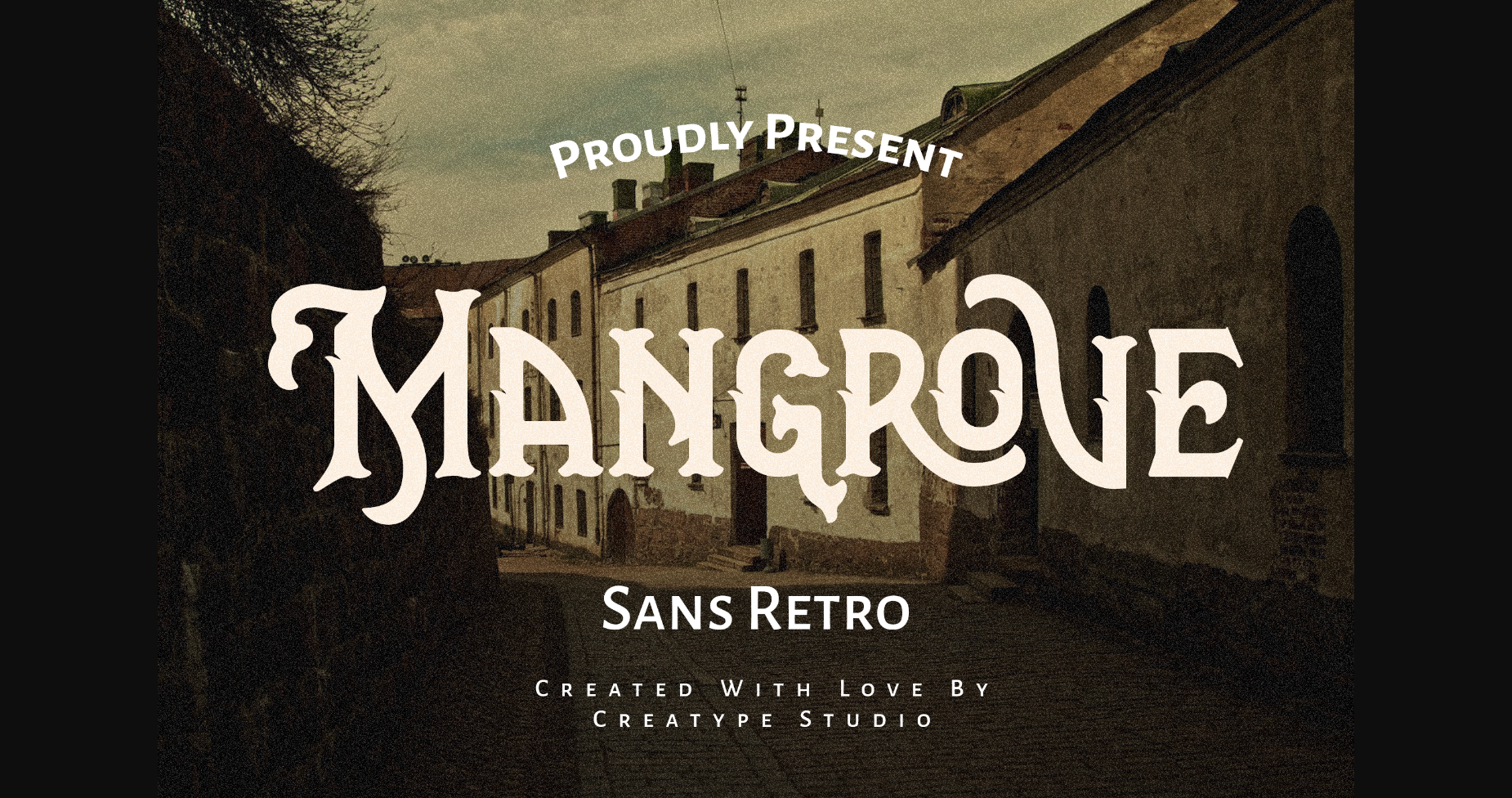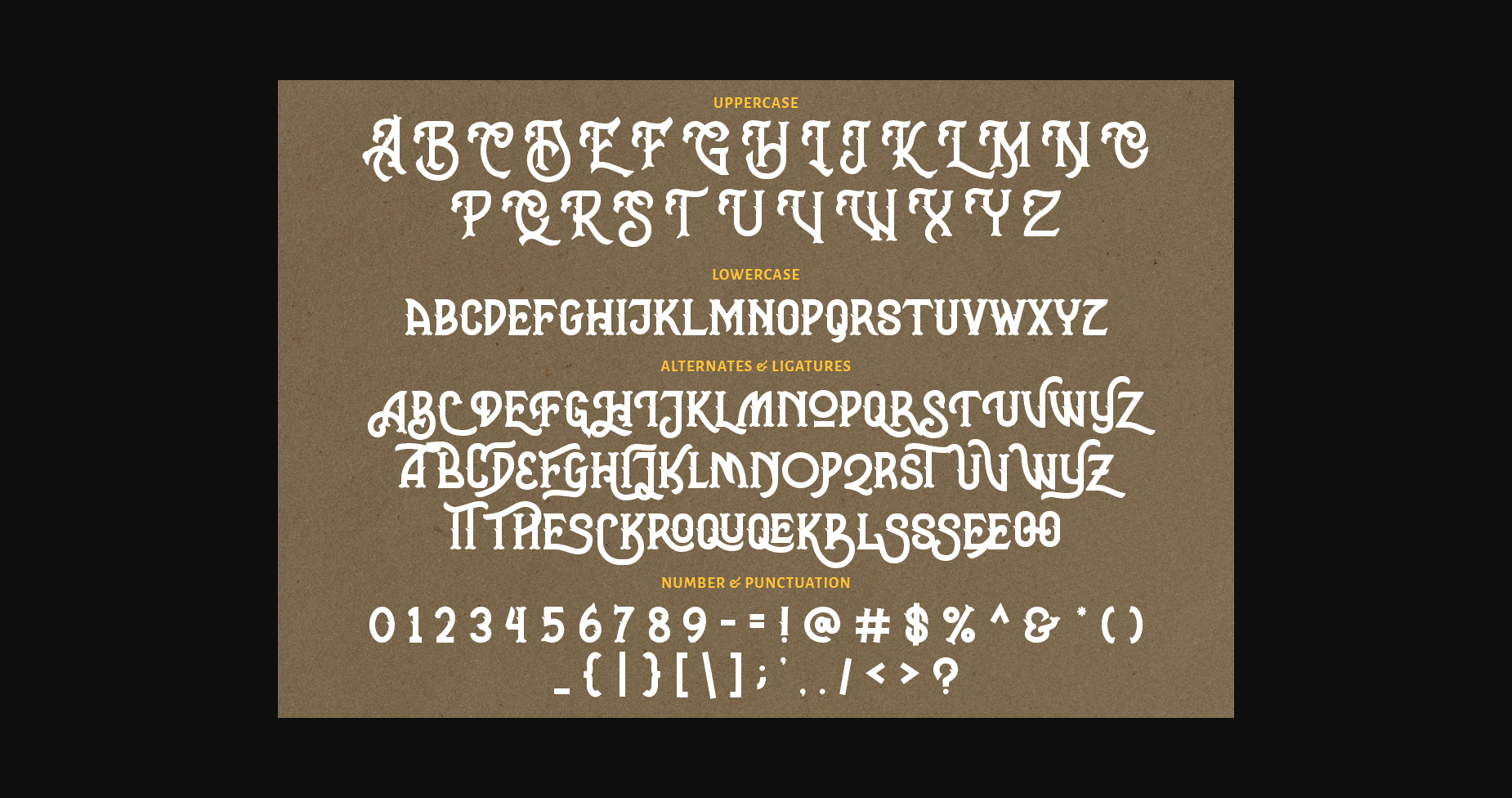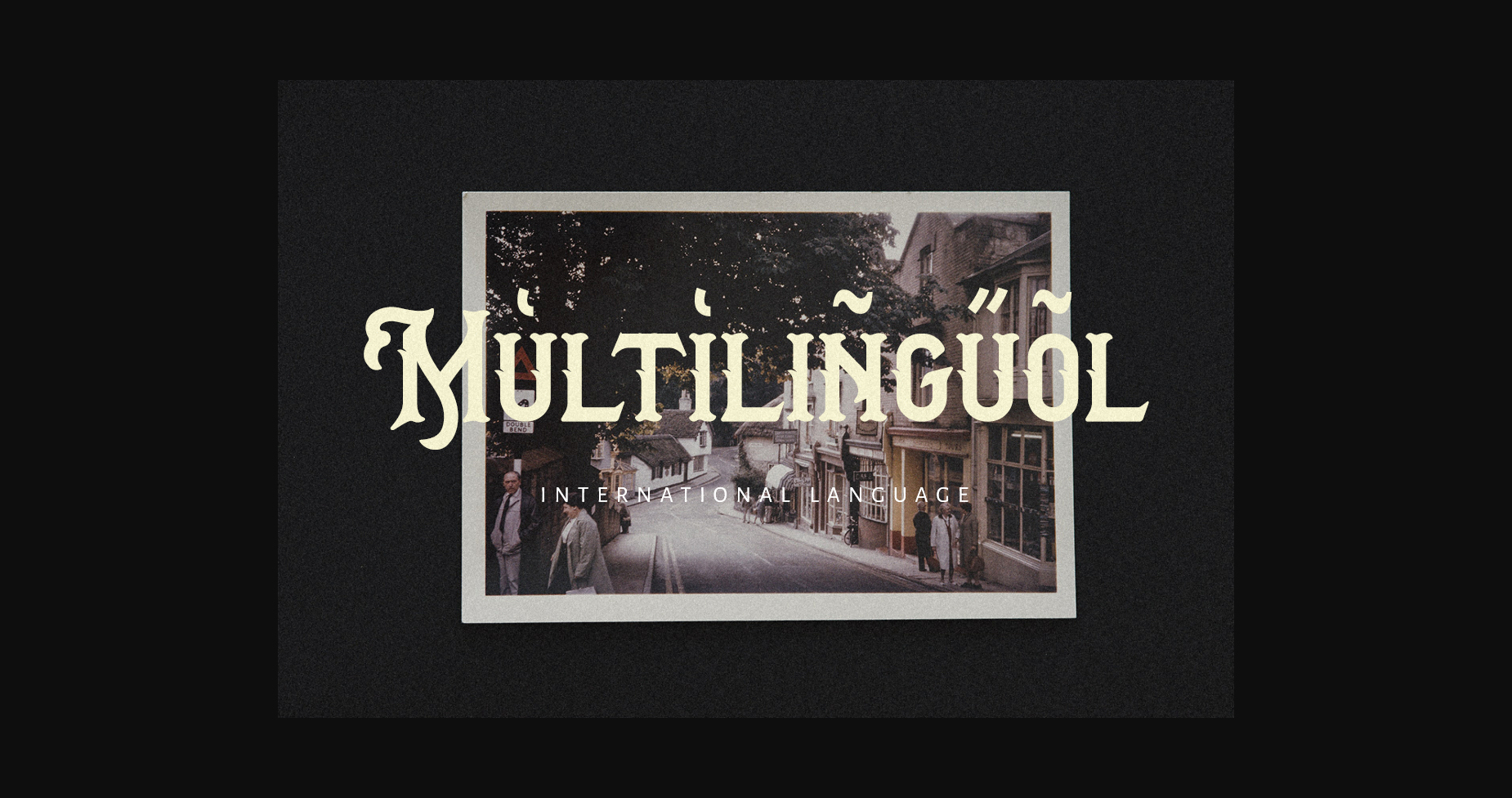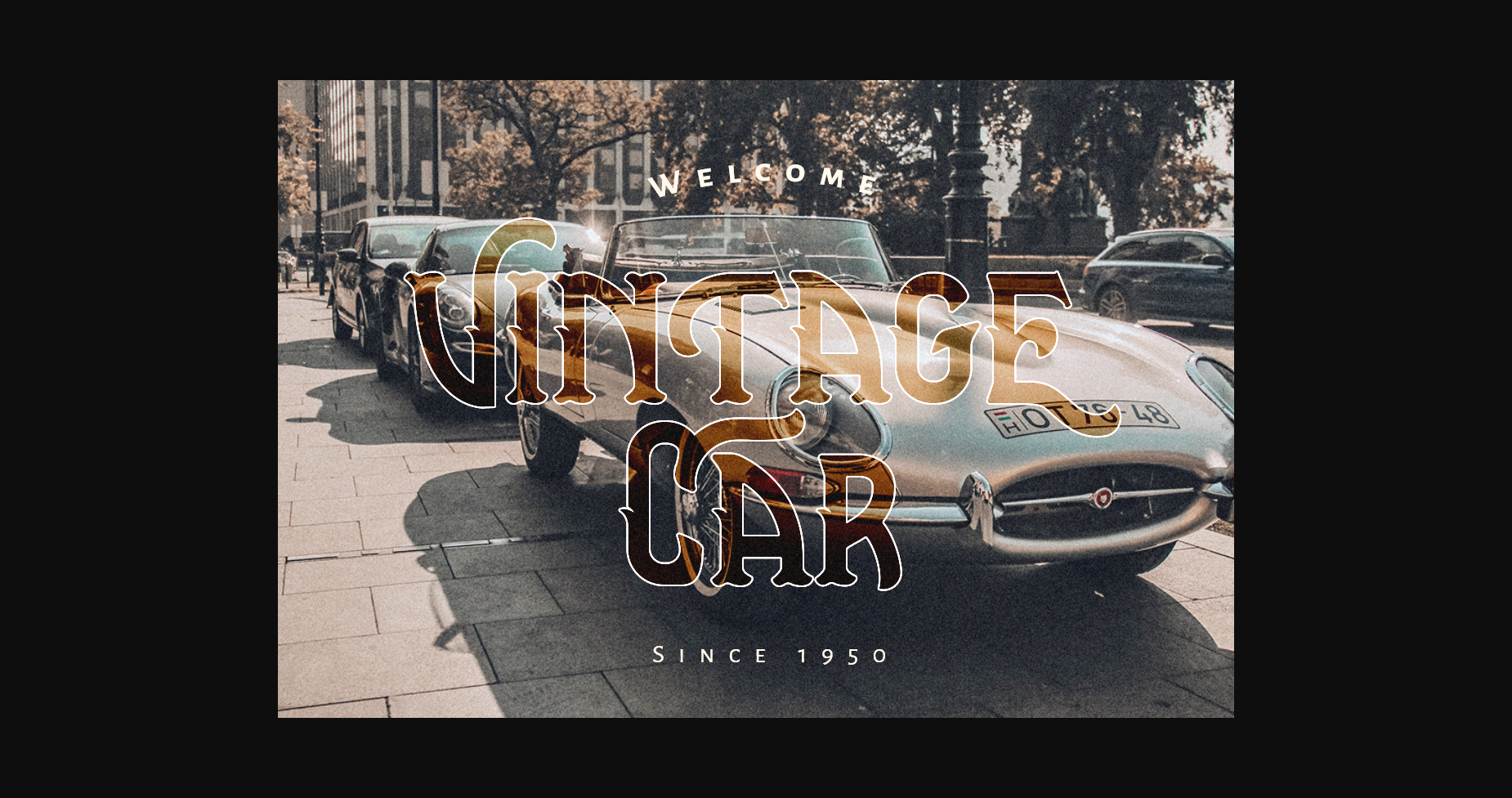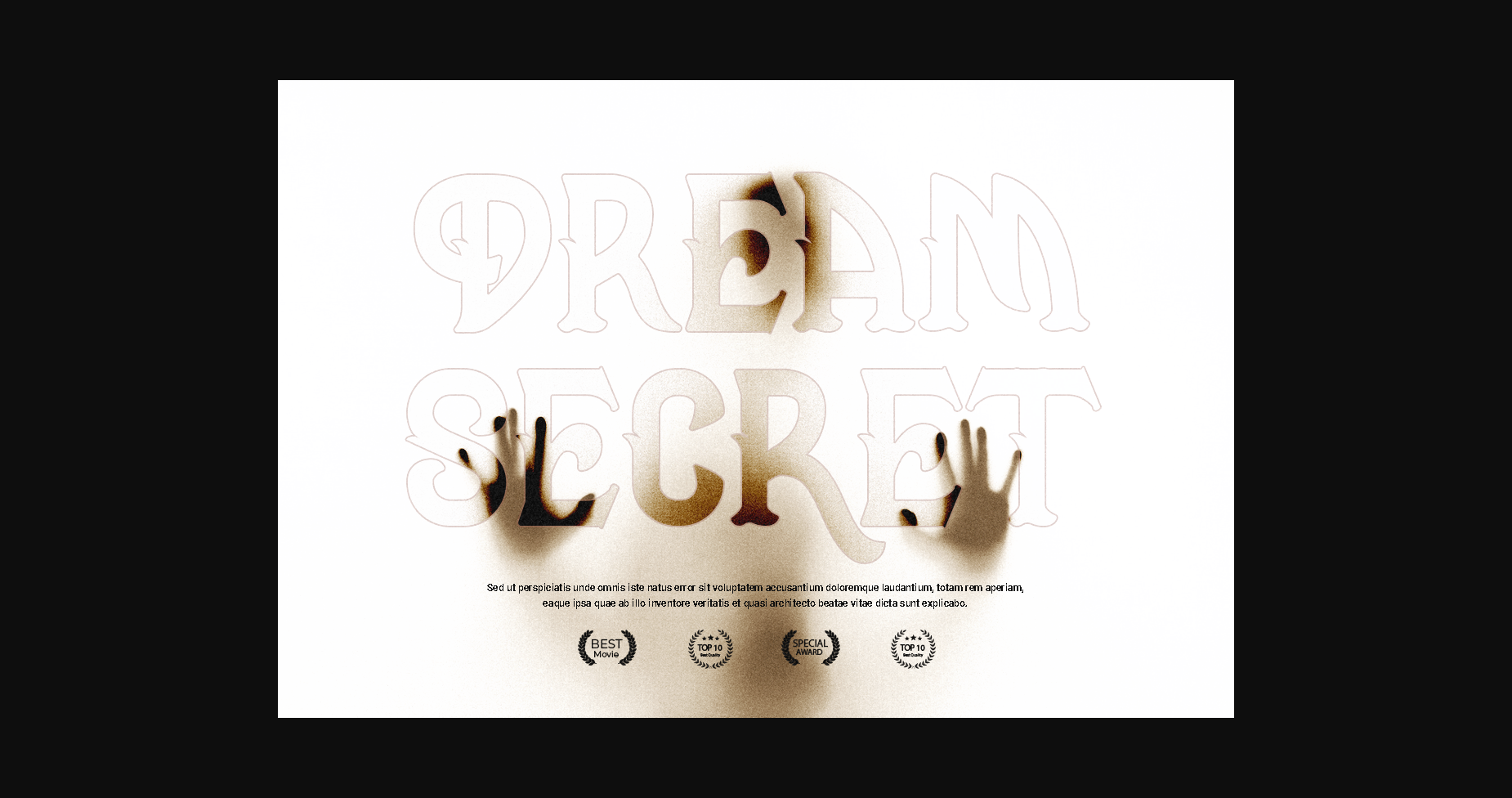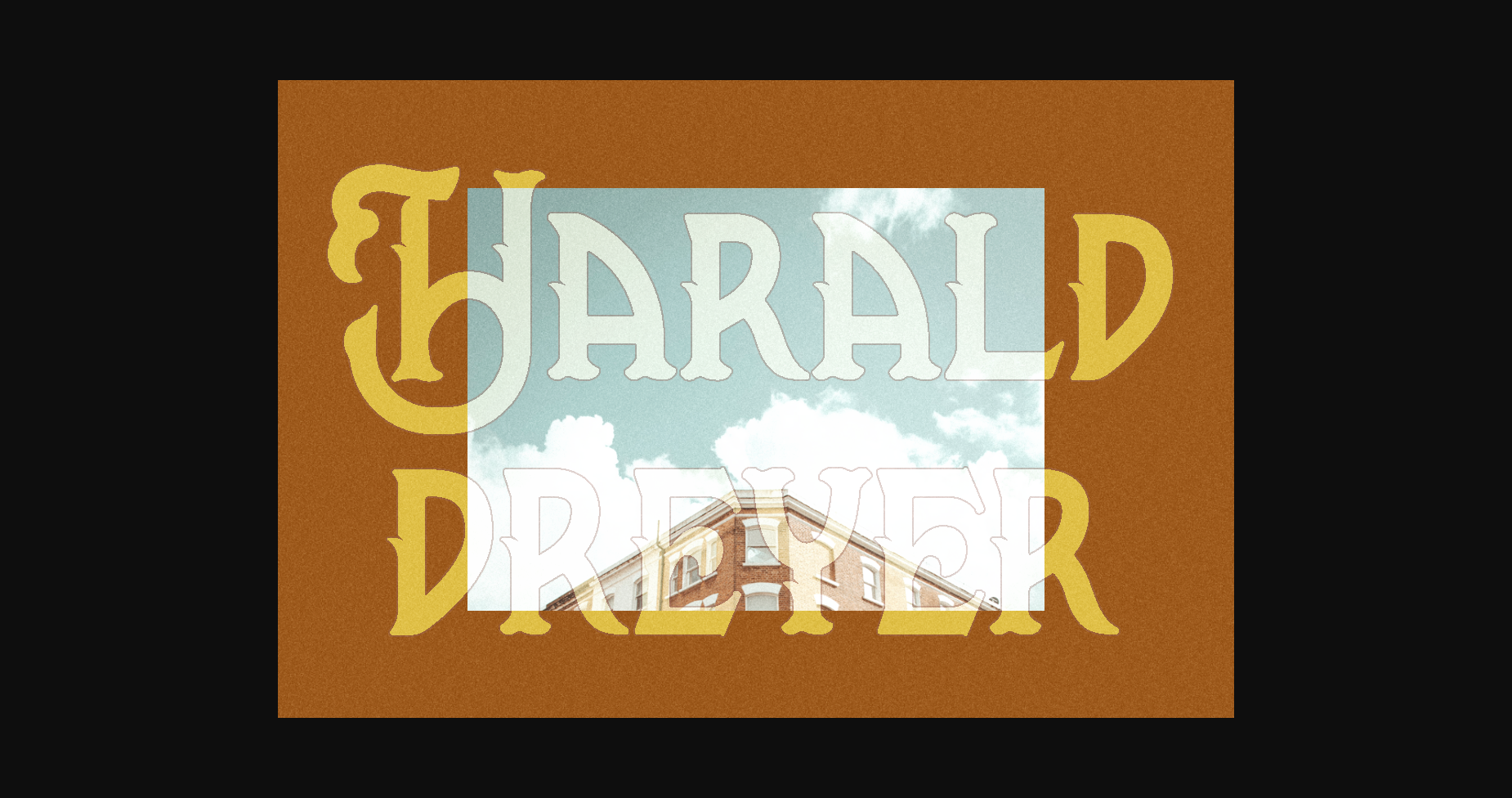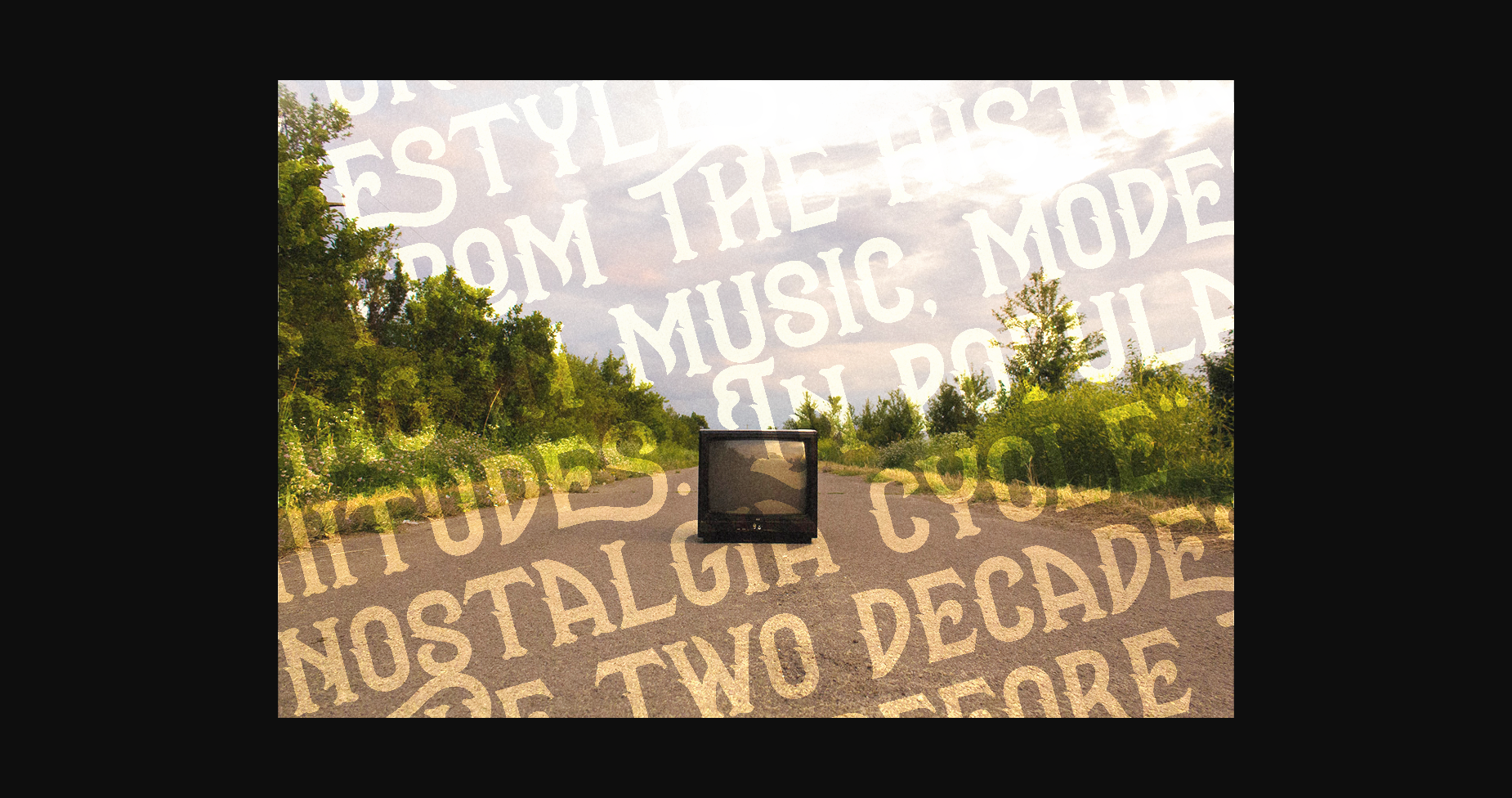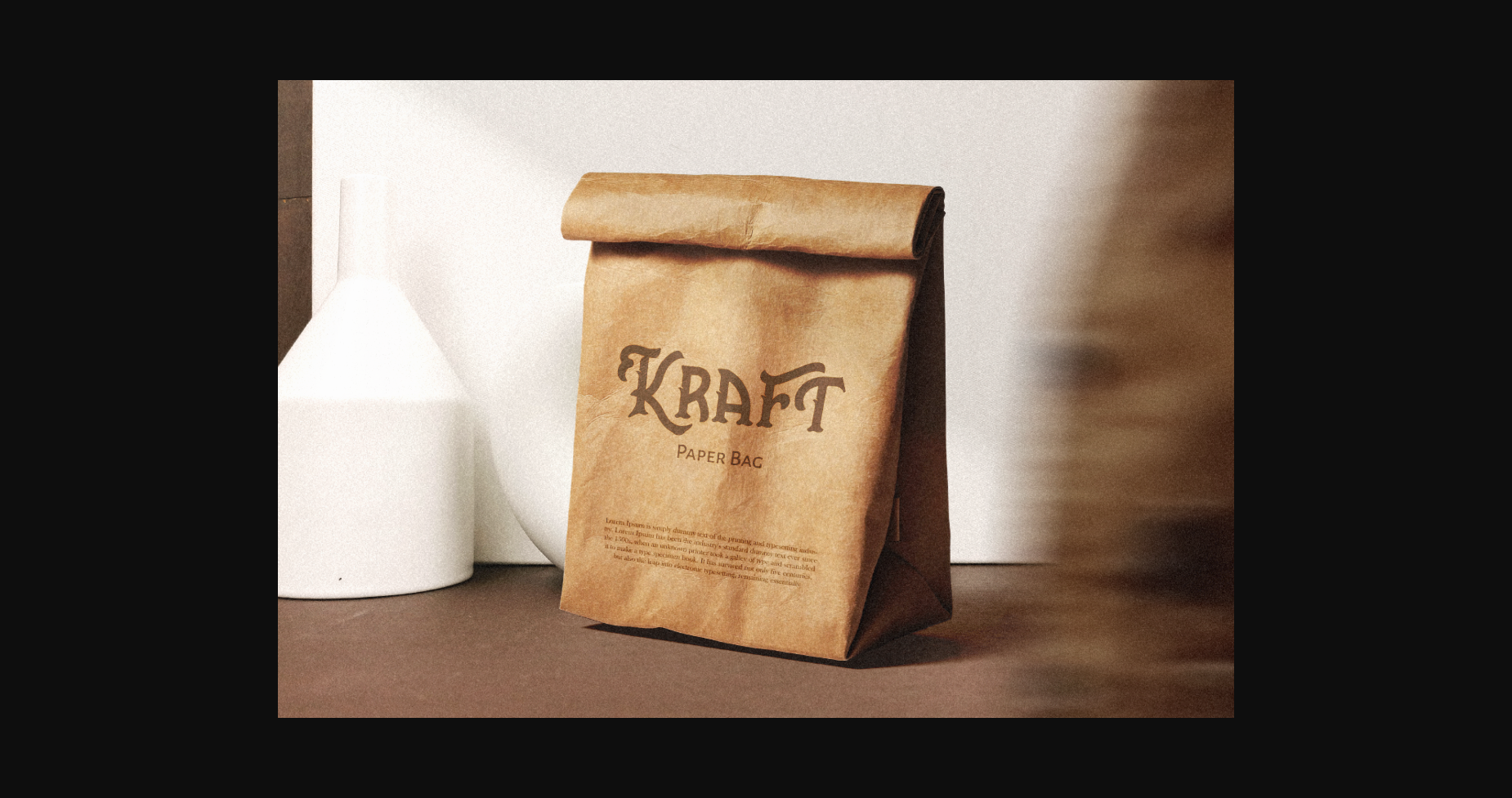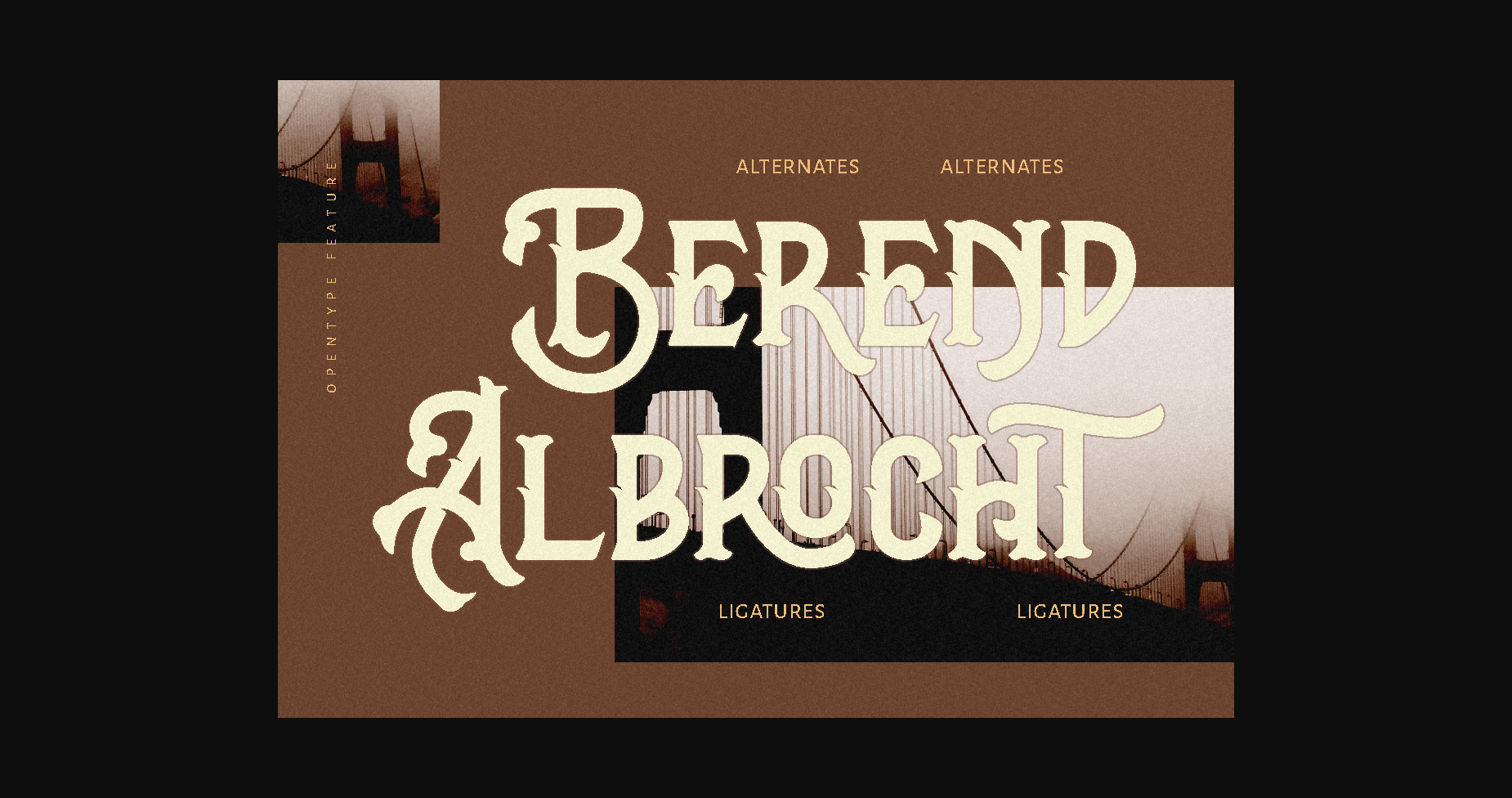
Mangrove Font
About Mangrove Font
A vintage, masculine and mysterious typeface, that’s what Mangrove is. With those three attributes, Mangrove will bring a bold and daring look to any design you wish to add it to.
Mangrove is perfect for branding projects, logos, wedding designs, social media posts, advertisements, product packaging, product designs, label, photography, watermark, invitation, stationery, or anything that requires a powerful accent.